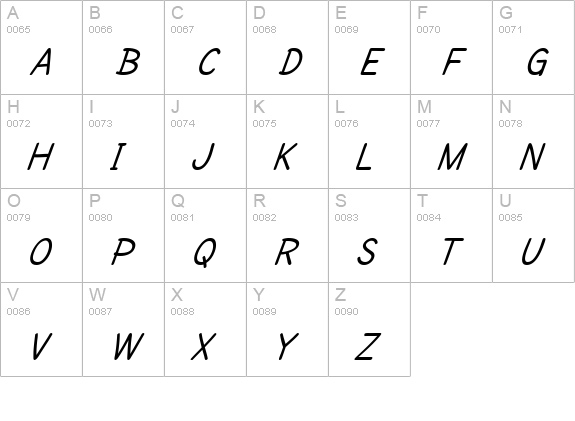
SF Cartoonist Hand Italic Font Details
SF Cartoonist Hand Italic is a distinctive, italic variant in the SF typeface family \xE2\x80\x94 well suited to design and typography projects.
Introducing SF Cartoonist Hand Italic, a whimsical and playful font that brings a touch of charm and character to any design project. With its unique hand-drawn style, this font is perfect for adding a dash of creativity to children's books, comic strips, posters, and more. SF Cartoonist Hand Italic is not only visually captivating but also incredibly versatile, allowing you to effortlessly convey a sense of fun and lightheartedness. Its italicized form adds a dynamic touch, enhancing the overall visual impact of your designs. What makes SF Cartoonist Hand Italic even more appealing is that it is available for free download at FontsMarket.com. As a freely accessible font, it grants you the opportunity to bring your creative visions to life without any financial barriers. Whether you're a professional designer, an aspiring illustrator, or simply someone who enjoys creating unique and engaging content, this font is a valuable addition to your toolkit. With SF Cartoonist Hand Italic, you can take your projects to new heights, infusing them with a sense of playfulness and imagination that captivates audiences of all ages. Don't miss out on this fantastic opportunity to download this exceptional font for free at FontsMarket.com and unleash your creativity today.